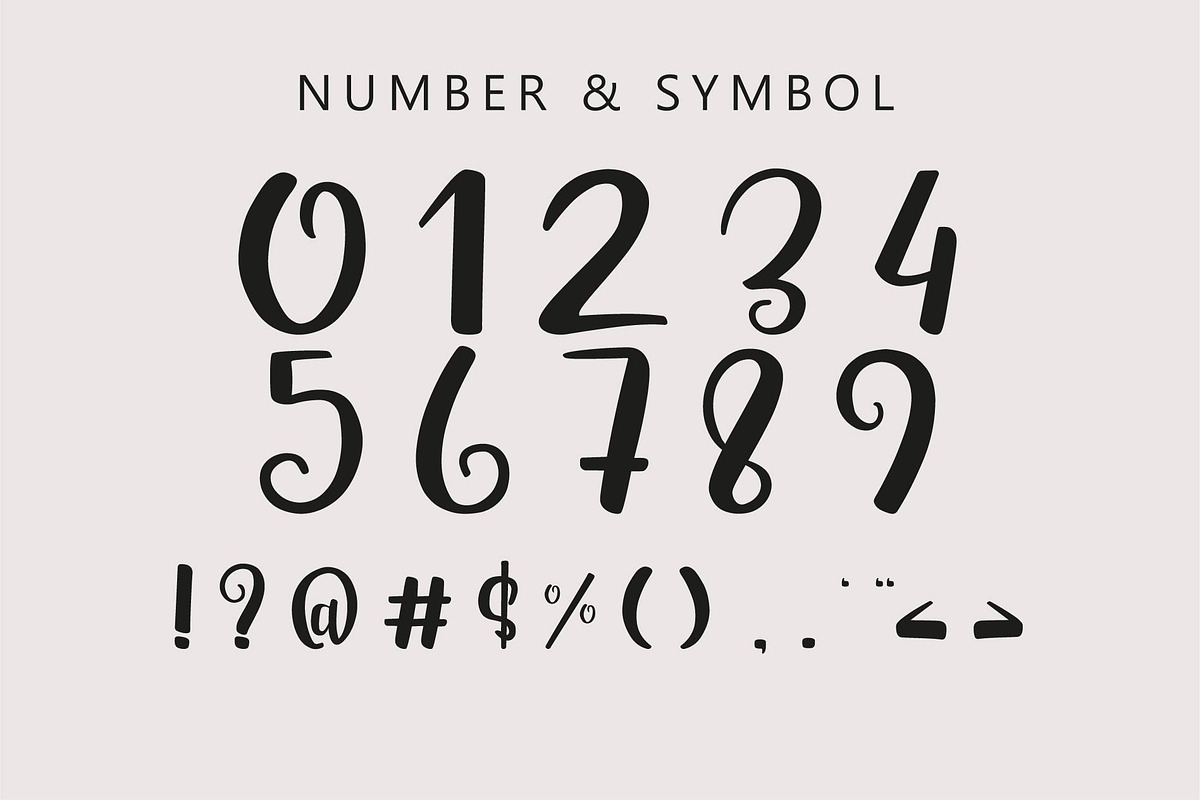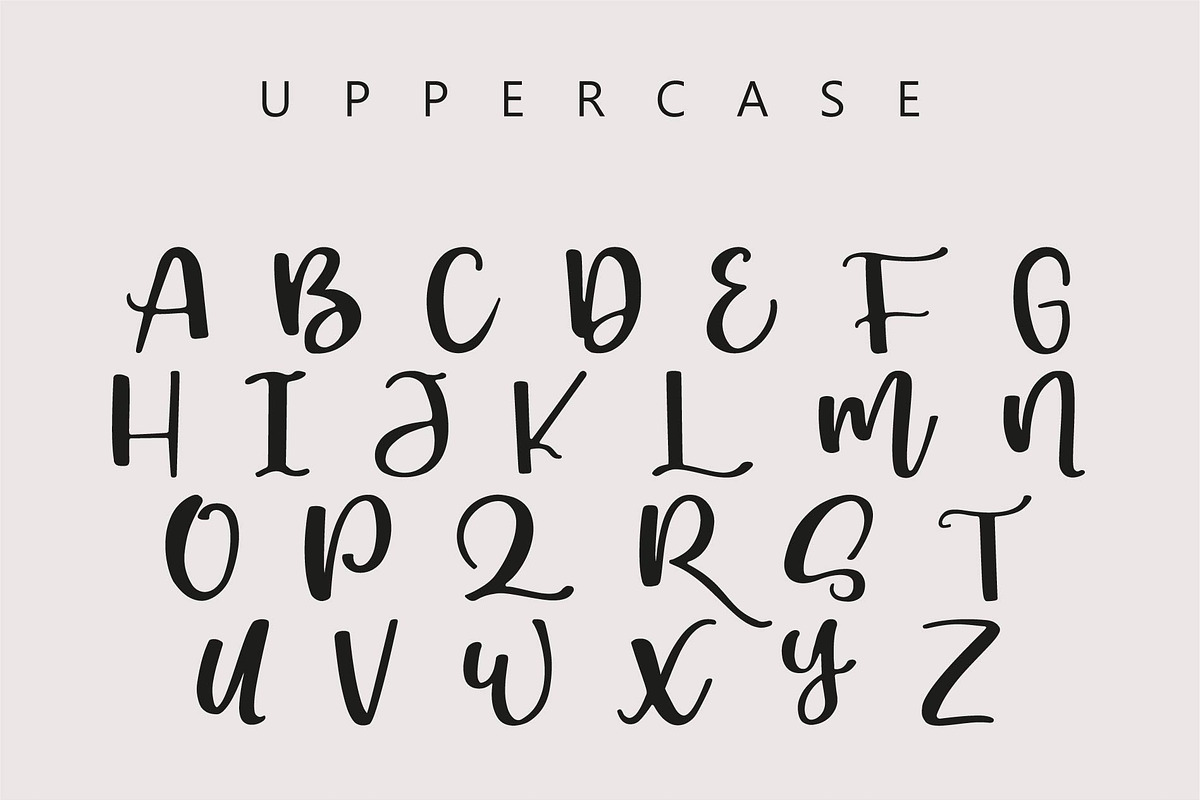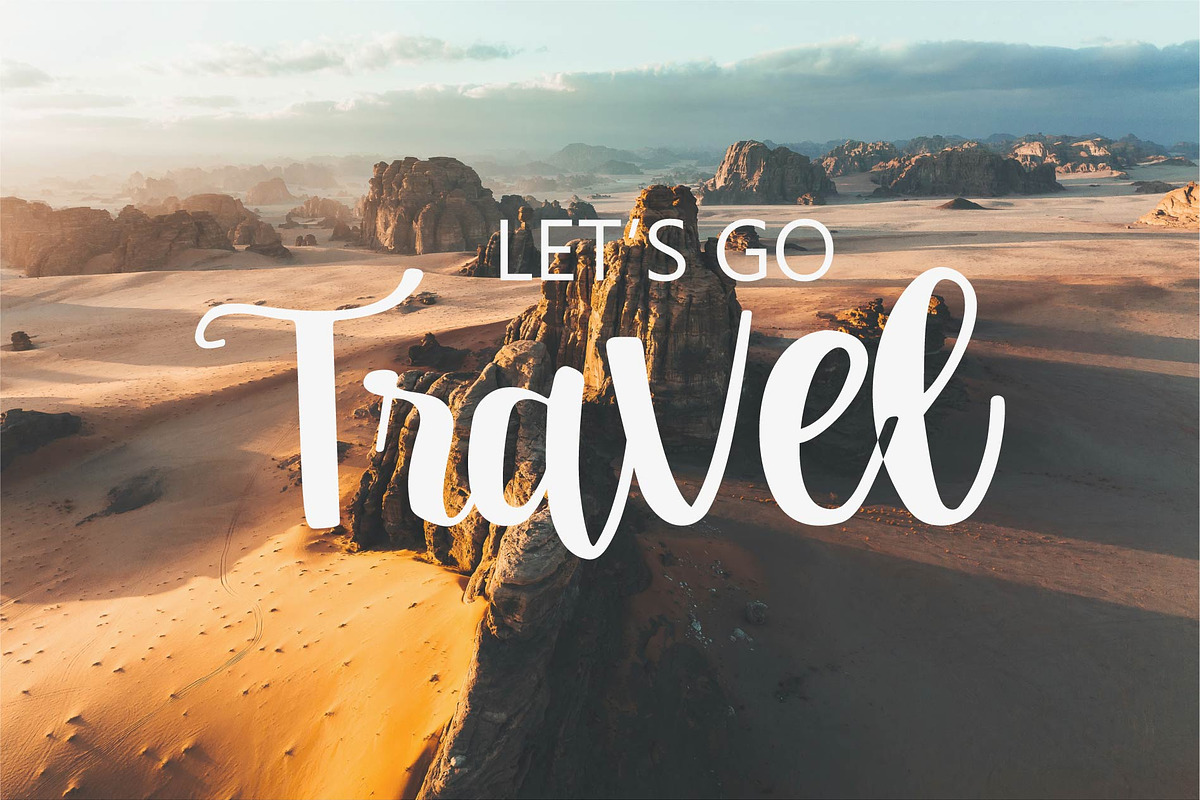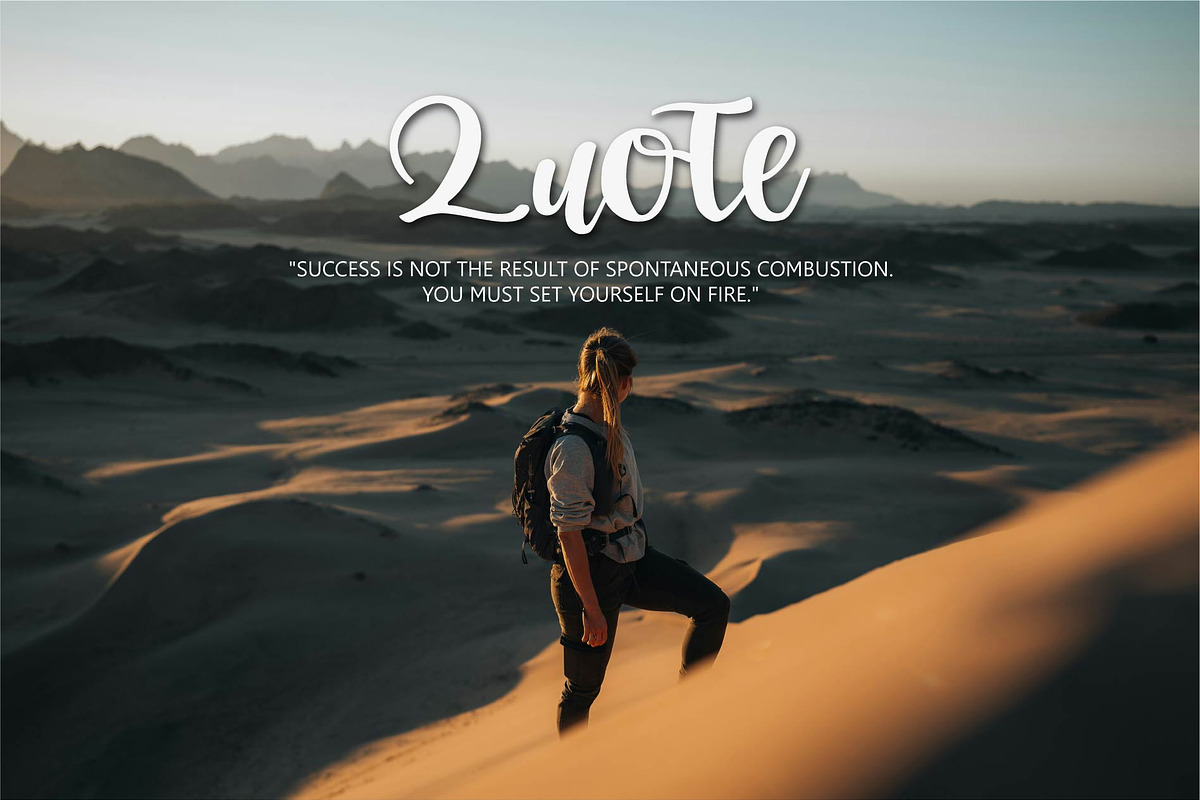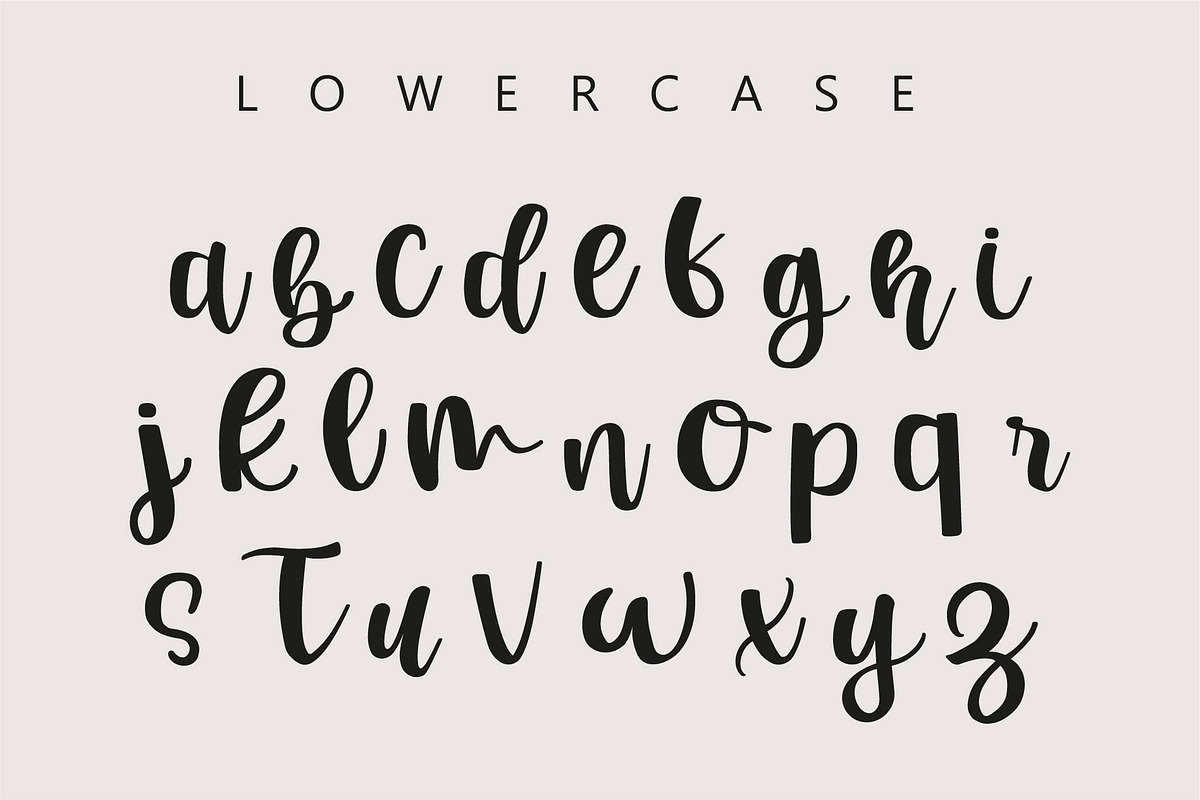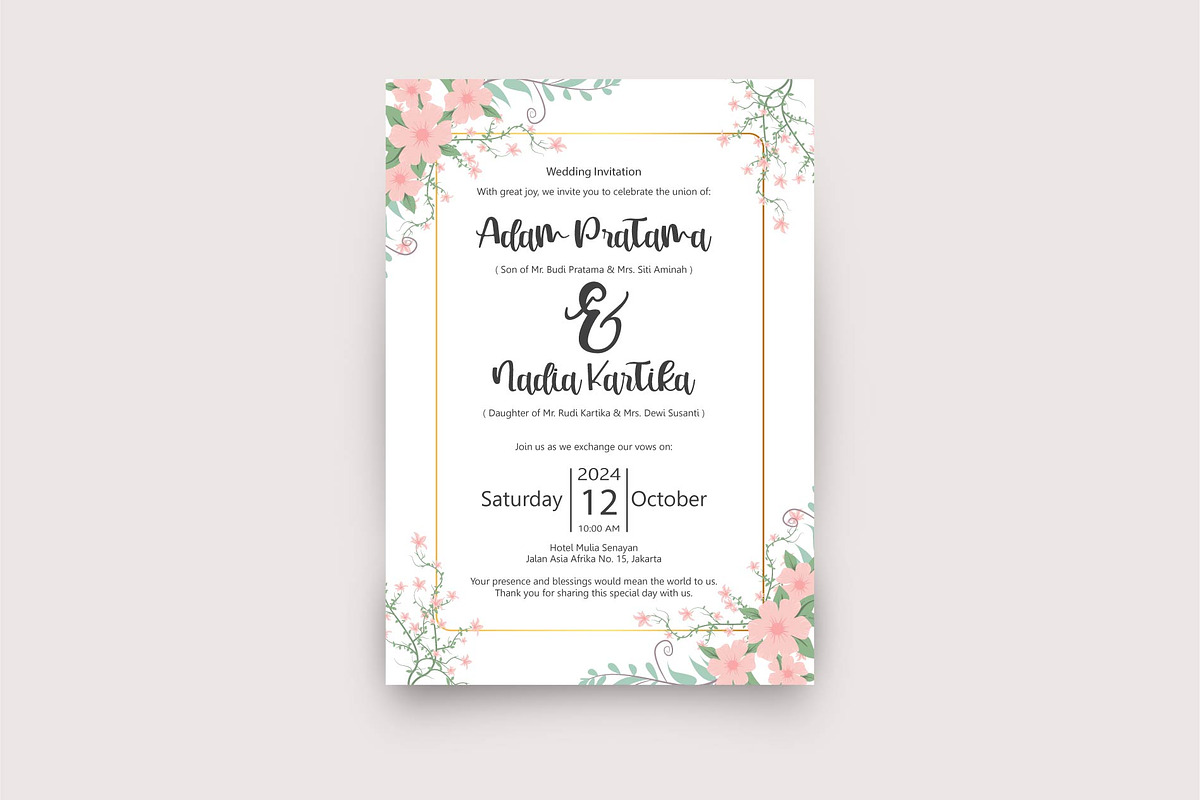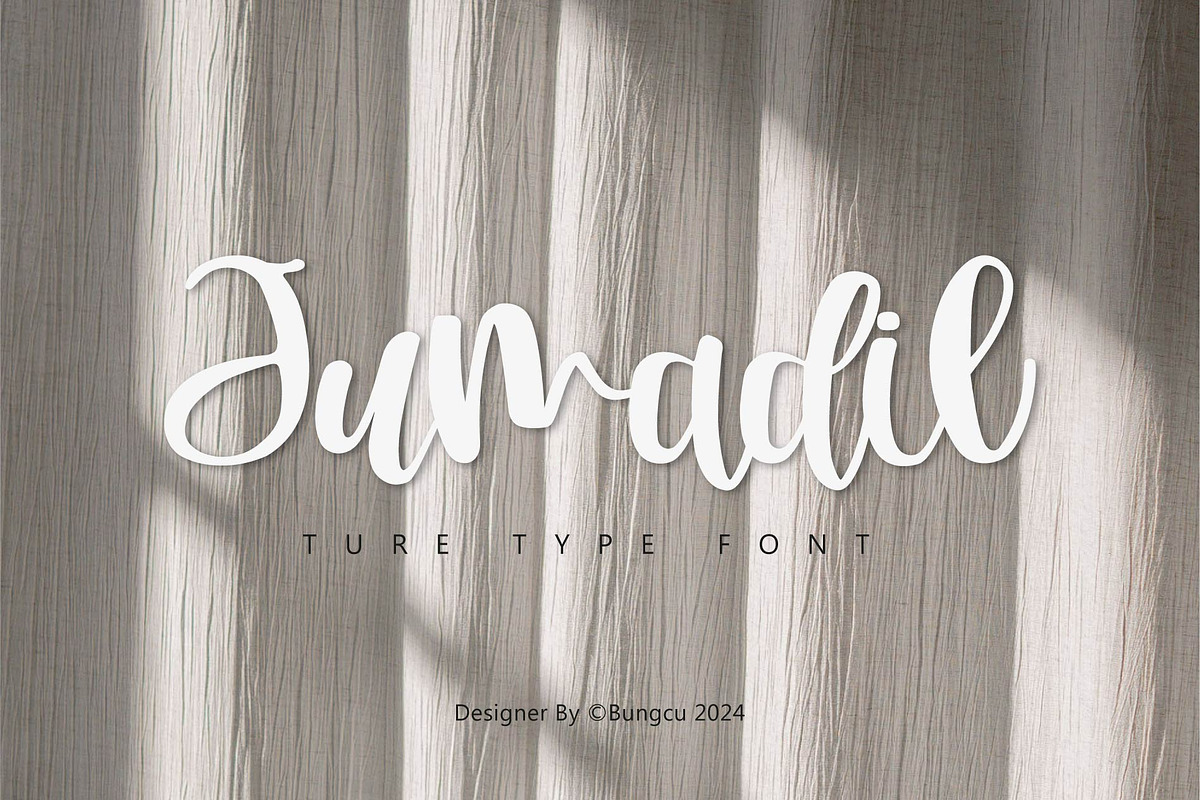
Jumadil
Jumadil Script Font is the perfect choice for those looking for a font with a unique blend of modern and retro aesthetics. Elegantly designed, this font will help you create stunning designs—from logos and inspirational quotes to social media posts and special wedding invitations. Jumadil is ideal for any branding project, adding a professional and artistic touch to your work.